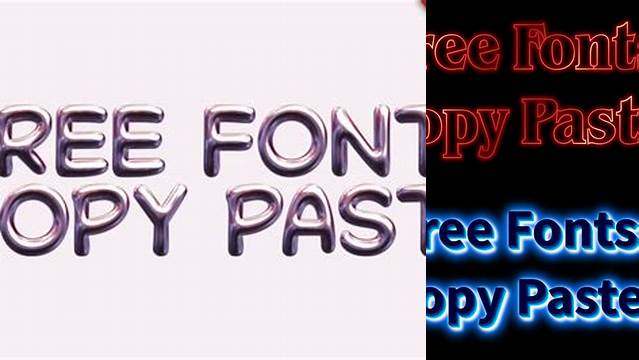
Free Metal Fonts: Copy & Paste Guide
Hey guys! Ever wanted to give your designs that cool, metallic edge? You know, that industrial, futuristic, or even medieval vibe? Well, you're in the right place! This guide is all about free metal fonts, how to find them, and most importantly, how to copy and paste them into your projects. Let's dive in and make your text look seriously awesome!
1. What are Metal Fonts?
Okay, first things first, what exactly are we talking about when we say "metal fonts"? Basically, these are fonts that mimic the look and feel of metal. Think sharp edges, bold lines, and a general sense of strength and durability. These fonts often incorporate elements that suggest rivets, plates, or other metallic textures. They're perfect for designs that need a strong, industrial, or even futuristic aesthetic. Understanding the characteristics of metal fonts is key to using them effectively. Imagine a logo for a metal band, a title for a sci-fi game, or even a poster for a heavy machinery expo. Metal fonts are the go-to choice for these kinds of projects. To truly understand the appeal of metal fonts, consider the visual impact they create. They convey a sense of power, solidity, and often, a touch of edginess. Whether you're designing a poster for a rock concert or a website for an engineering firm, choosing the right metal font can make all the difference. The versatility of metal fonts lies in their ability to evoke different moods and themes. A heavily textured, distressed metal font might be perfect for a vintage-inspired design, while a sleek, minimalist metal font could lend a futuristic feel to your project. Let's explore some specific examples to get a better idea.
2. Types of Metal Fonts Available for Free
So, what kind of free metal fonts can you actually find? There's a surprising variety out there! You've got your bold, blocky fonts that scream industrial strength, your more elegant, almost engraved-looking fonts, and everything in between. We're talking fonts inspired by steel, iron, even futuristic alloys! Exploring the different styles of metal fonts is like stepping into a treasure trove of design possibilities. You'll find fonts that are perfect for headlines, logos, and even body text, depending on the specific style and application. Think about fonts with sharp, angular edges that resemble cut metal, or fonts with rounded, more organic shapes that mimic molten metal. The range of free metal fonts available is truly impressive, and it's worth taking the time to browse through different options to find the perfect fit for your project. For example, some fonts feature a distressed or weathered appearance, giving them a vintage or industrial feel, while others boast a sleek, modern design that's ideal for futuristic themes. Another cool category is fonts that incorporate actual metal textures, such as brushed steel or corrugated iron. These details can add a lot of visual interest and authenticity to your designs. Let's discuss some specific types you might encounter.
7. How to Install Metal Fonts on Windows
Okay, you've found your perfect free metal font and you've made sure the license is good to go. Now what? Time to install it! The process is pretty straightforward, but it varies slightly depending on your operating system. Let's start with Windows. Understanding the font installation process on Windows is a fundamental skill for any designer. We'll walk you through the steps, from downloading the font file to making it available in your design software. Think of this as adding a new tool to your creative toolbox – you need to know how to get it in there! The step-by-step guide to installing fonts on Windows will cover everything from extracting font files from ZIP archives to using the Windows Fonts folder. We'll also address some common issues that might arise during installation, such as corrupted font files or compatibility problems. By following these instructions, you'll be able to quickly and easily add your new metal font to your system and start using it in your projects. Let's get those fonts installed and ready to rock!
8. How to Install Metal Fonts on macOS
Now, for the Mac users out there! Installing fonts on macOS is a similar process to Windows, but there are a few key differences. Mastering font installation on macOS is just as important as on Windows, and we'll provide a clear and concise guide to help you through the process. The Mac operating system has its own font management system, and understanding how it works will ensure your fonts are installed correctly and available to your applications. This simple guide to adding metal fonts to macOS will cover everything from opening font files in Font Book to resolving any potential conflicts. We'll also discuss some best practices for organizing your fonts on macOS, such as using font collections to group similar fonts together. Whether you're a seasoned Mac user or new to the platform, this section will equip you with the knowledge you need to install your free metal fonts with ease. Let's get those fonts up and running on your Mac!
9. Copying and Pasting Font Characters
So, you've got your font installed, but what if you need to use a special character or symbol that's not readily available on your keyboard? That's where the copy and paste method comes in handy! Exploring character maps and copy-paste techniques can unlock a whole new level of font versatility. Many fonts include a variety of unique glyphs and symbols that can add extra flair to your designs. Understanding how to access special characters within metal fonts is key to fully utilizing their potential. We'll be discussing how to use character maps on both Windows and macOS to find and copy these special characters. These tools allow you to browse the entire character set of a font and select individual characters to copy and paste into your documents or design software. Whether you need a specific symbol, a stylistic alternate, or a foreign language character, this section will show you how to get it done. Let's dive into the world of character maps and make sure you can access every glyph your metal font has to offer!